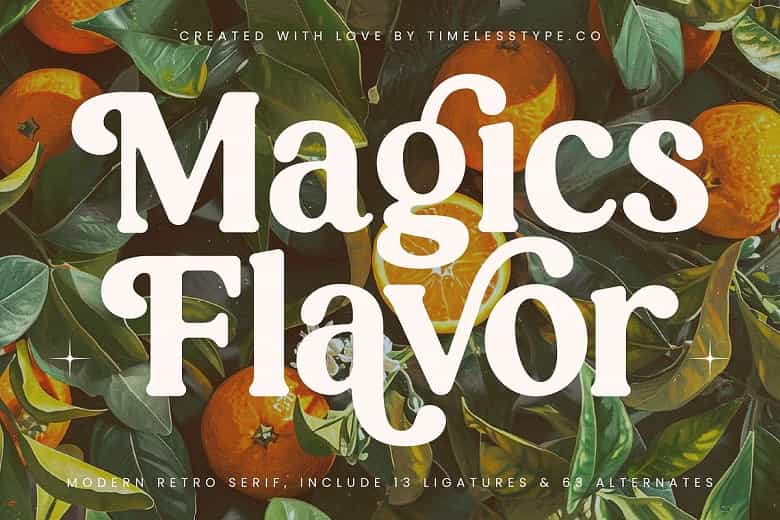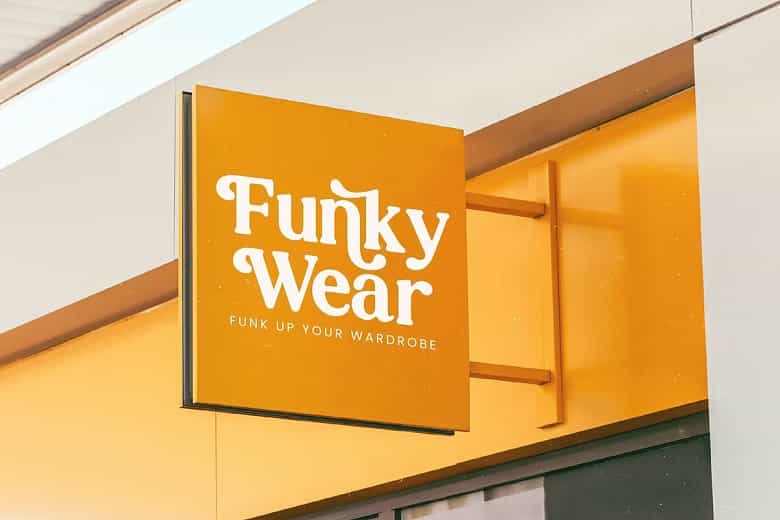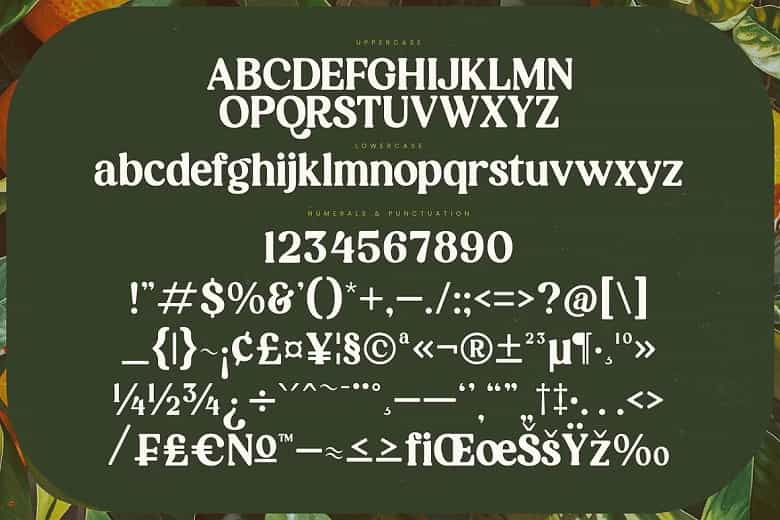
Magics Flavor is a modern retro serif font from Timelesstype. Co, Suitable for any projects such as: logos, branding projects, homeware designs, product packaging, mugs, quotes, posters, shopping bags, t-shirts, book covers, name card, invitation cards, greeting cards, special events, and all your other luxury and beautiful projects.